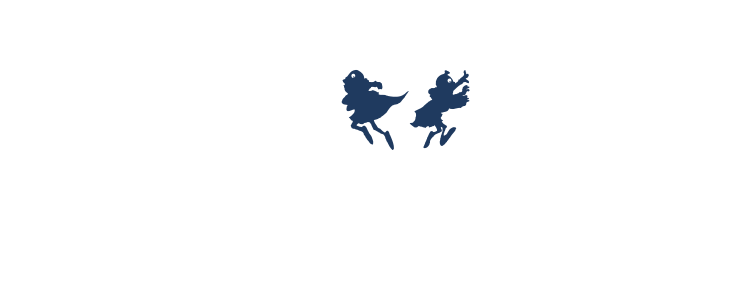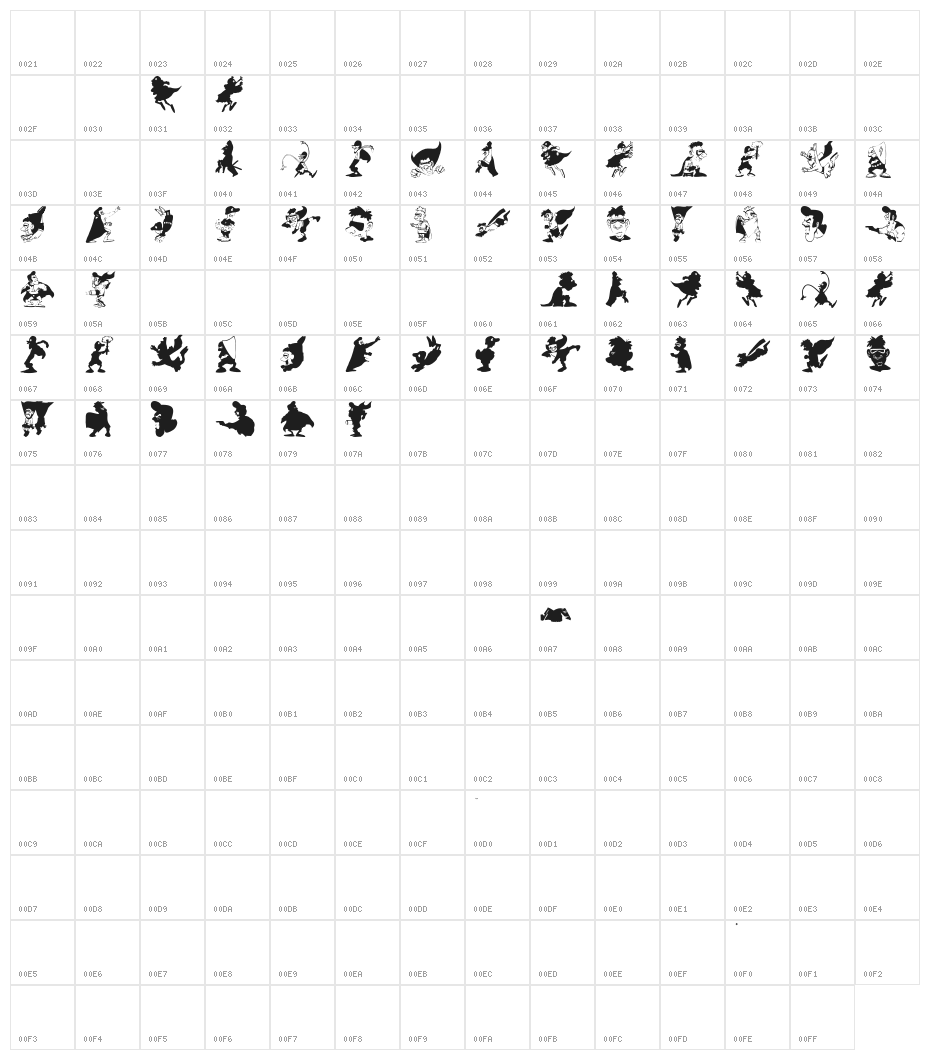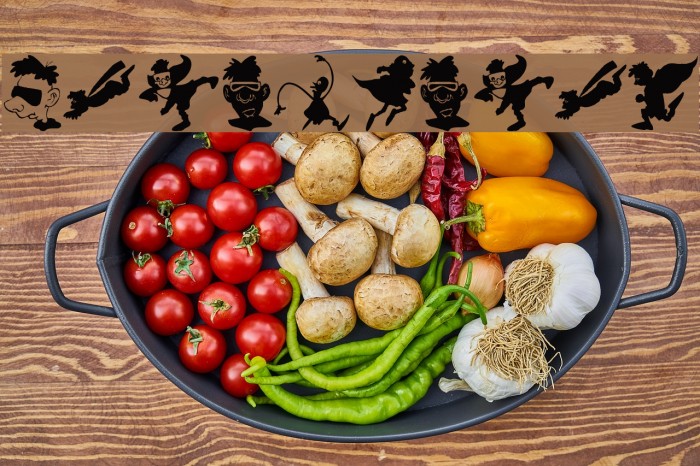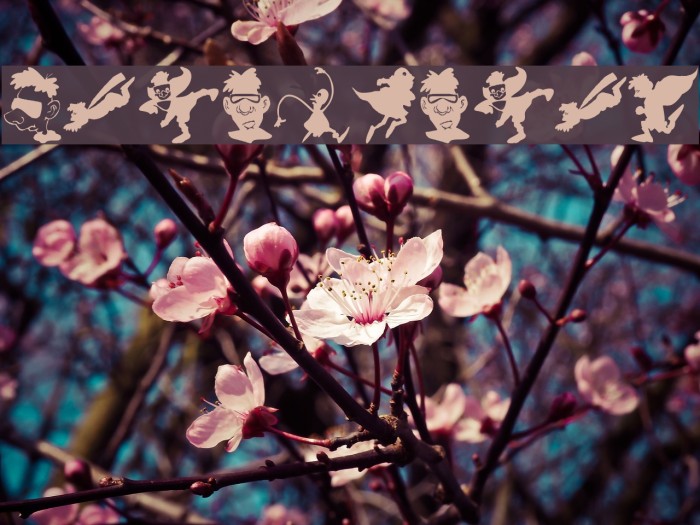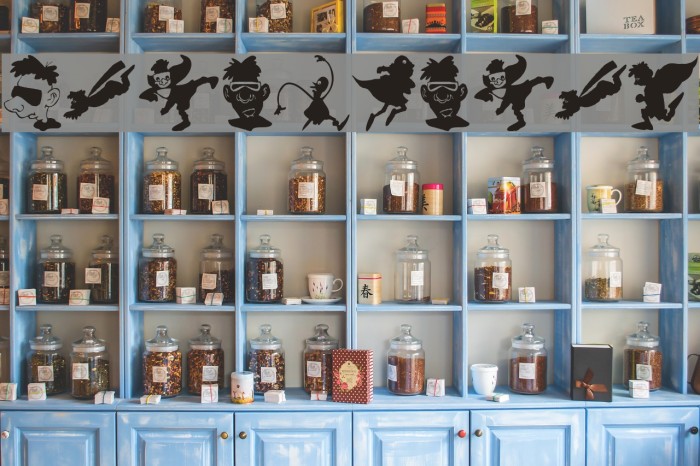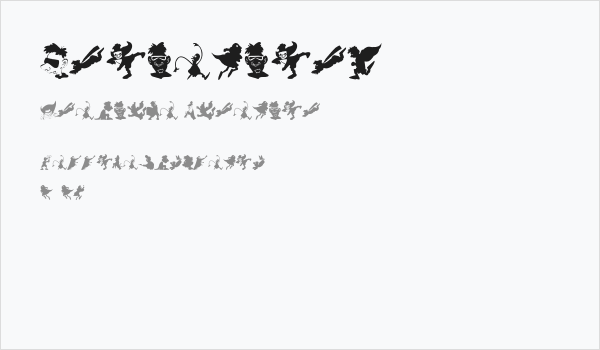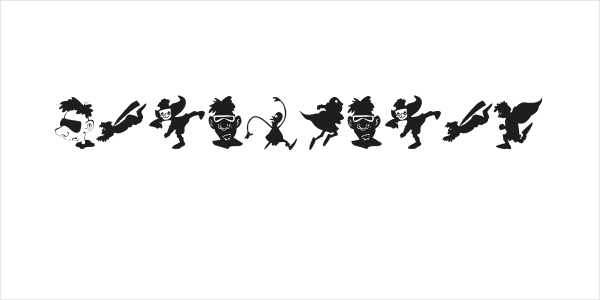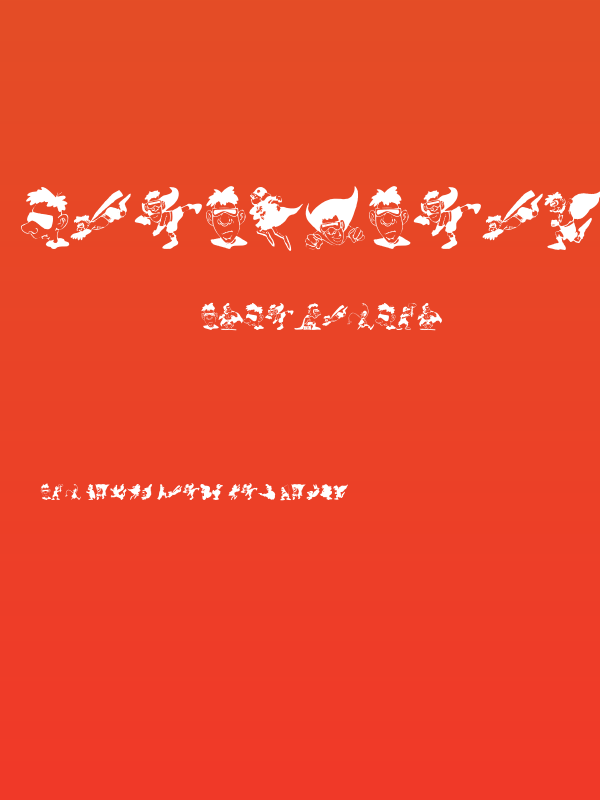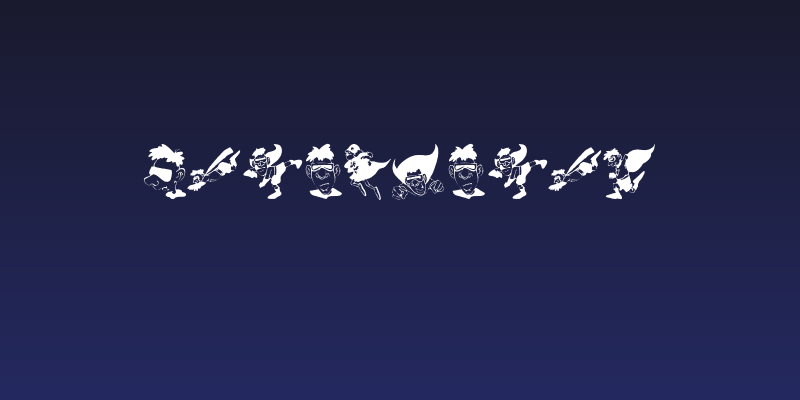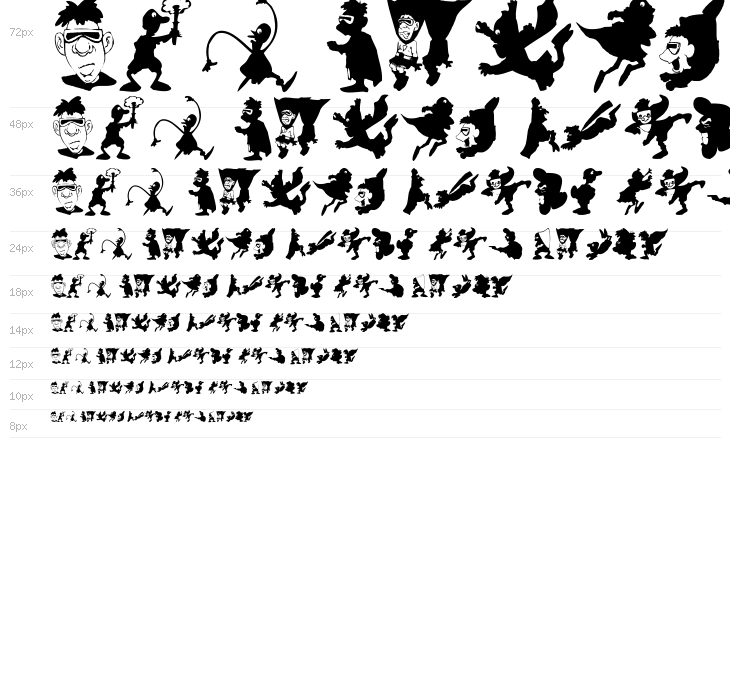
Protectors Font
Protectors Description
A playful, cartoon-style decorative font where each character is represented by a unique superhero or protector silhouette, featuring exaggerated poses and whimsical details. The glyphs are highly illustrative and vary in complexity, with some showing detailed outlines and others as bold silhouettes.
| Overall Style | Playful, Cartoon, Decorative |
| Use Case | Headlines, Logos, Posters, Themed Graphics |
| Proposed Projects | ChildrenΓ’β¬β’s book titles, comic book covers, party invitations, playful branding, themed posters. |